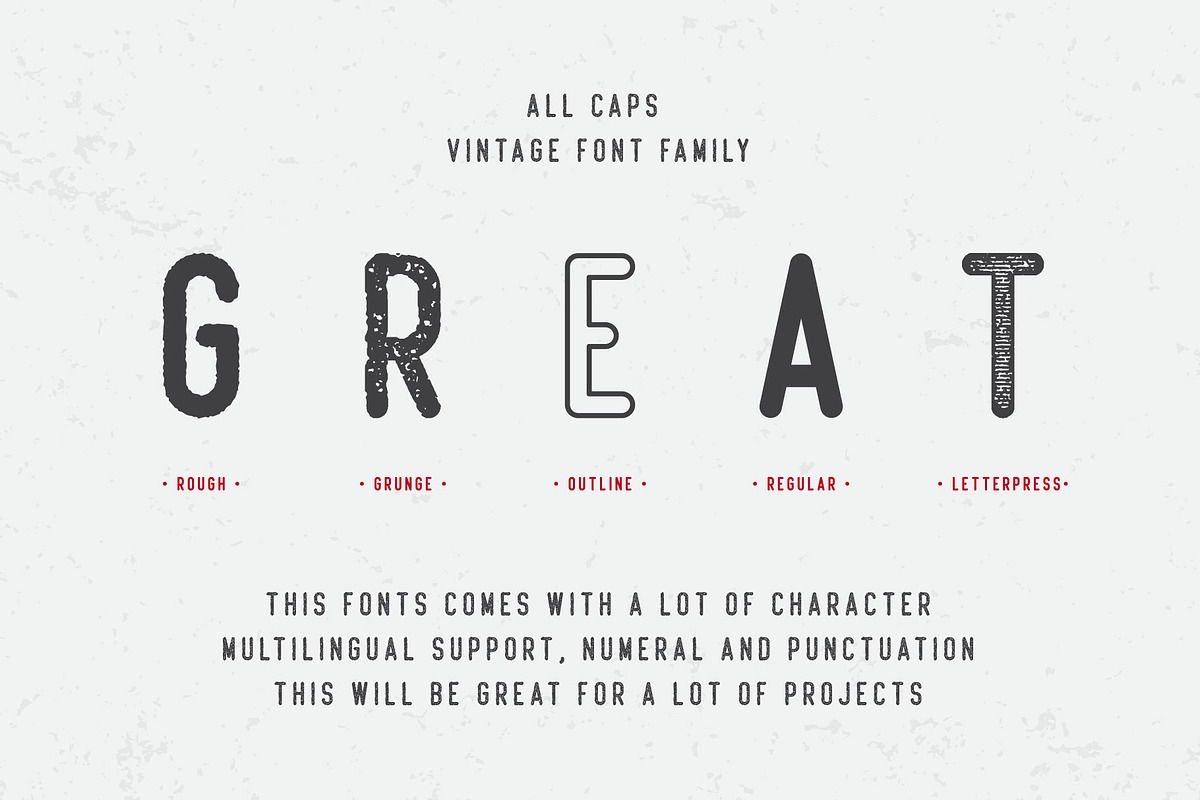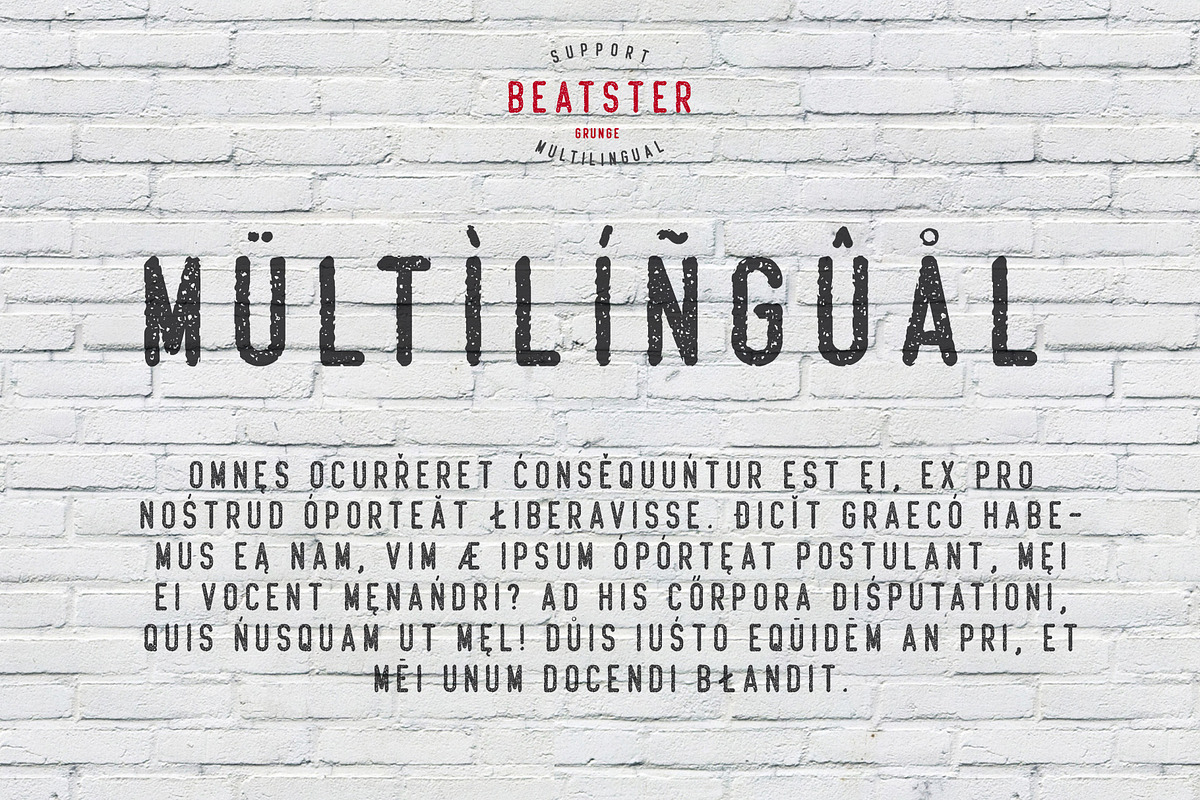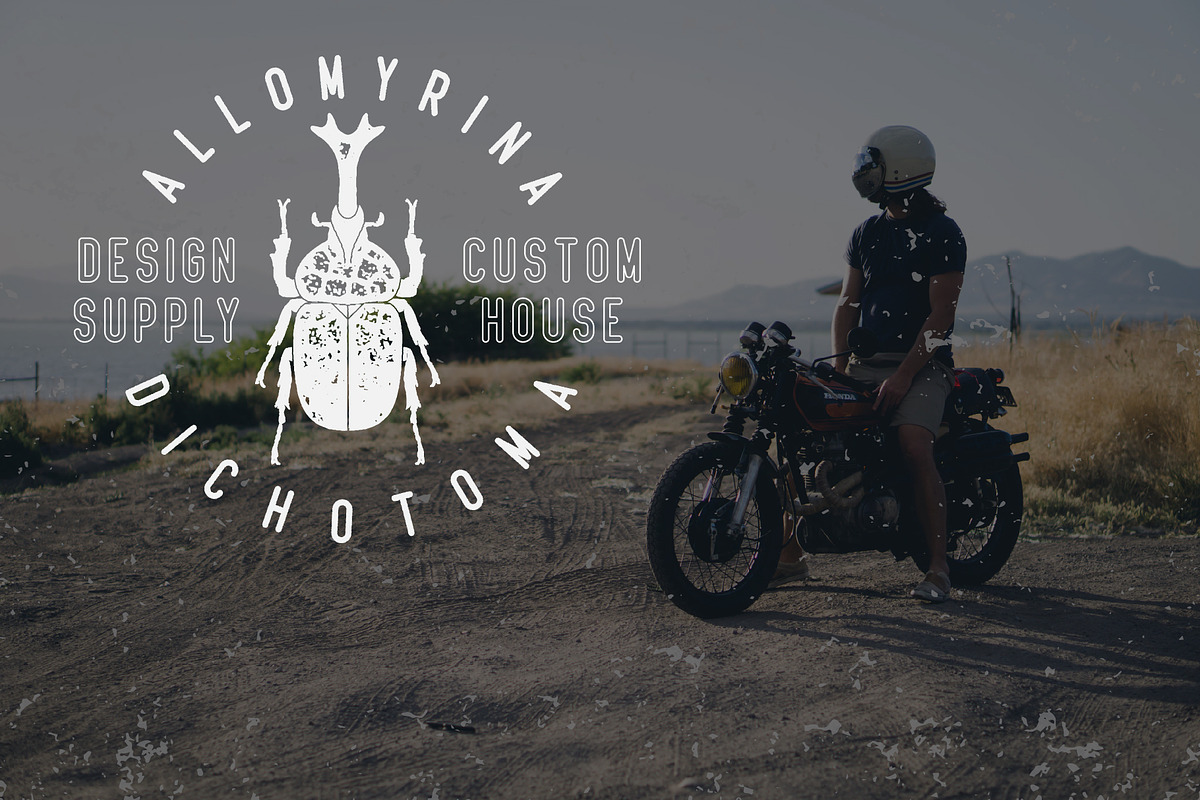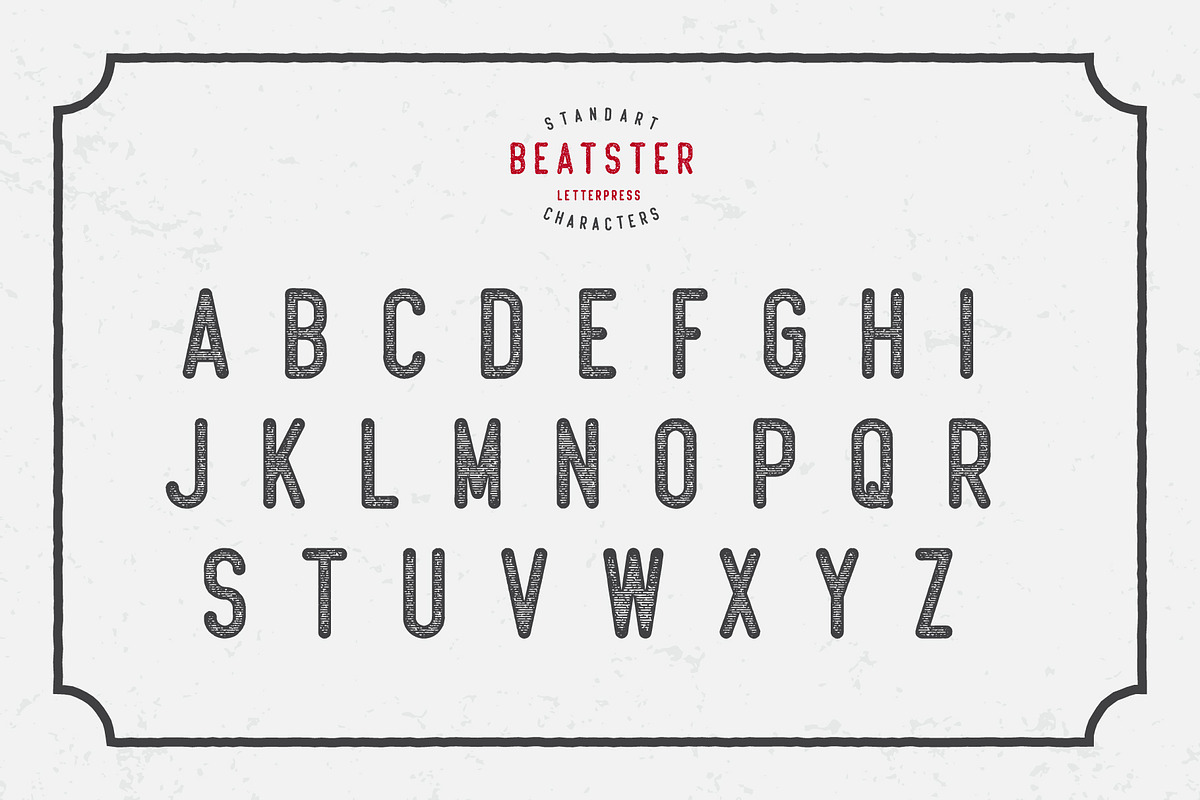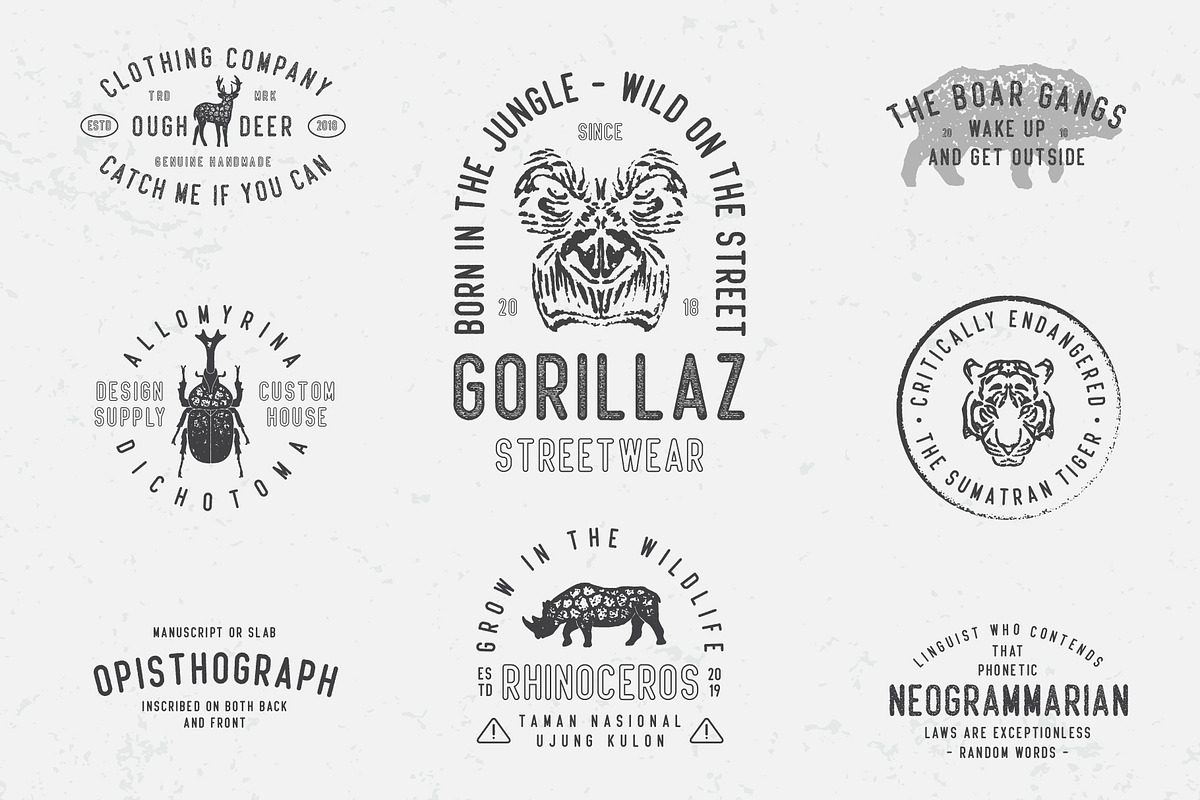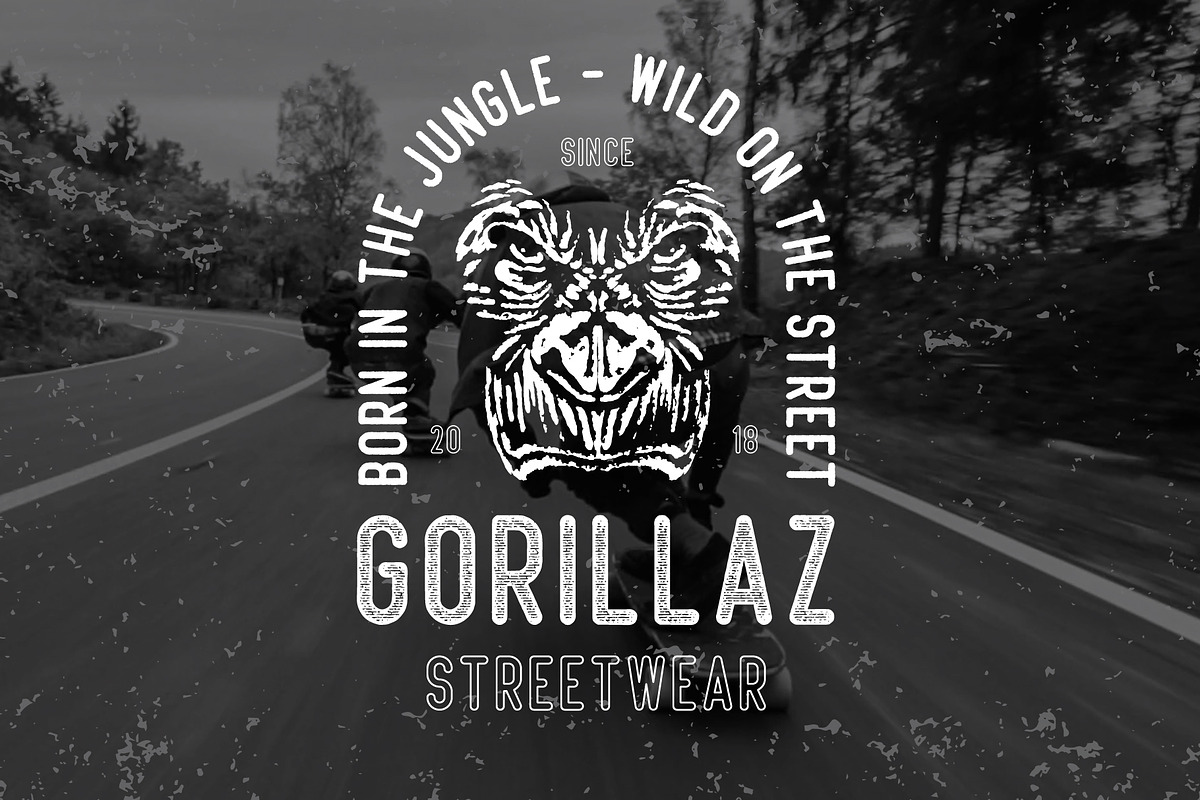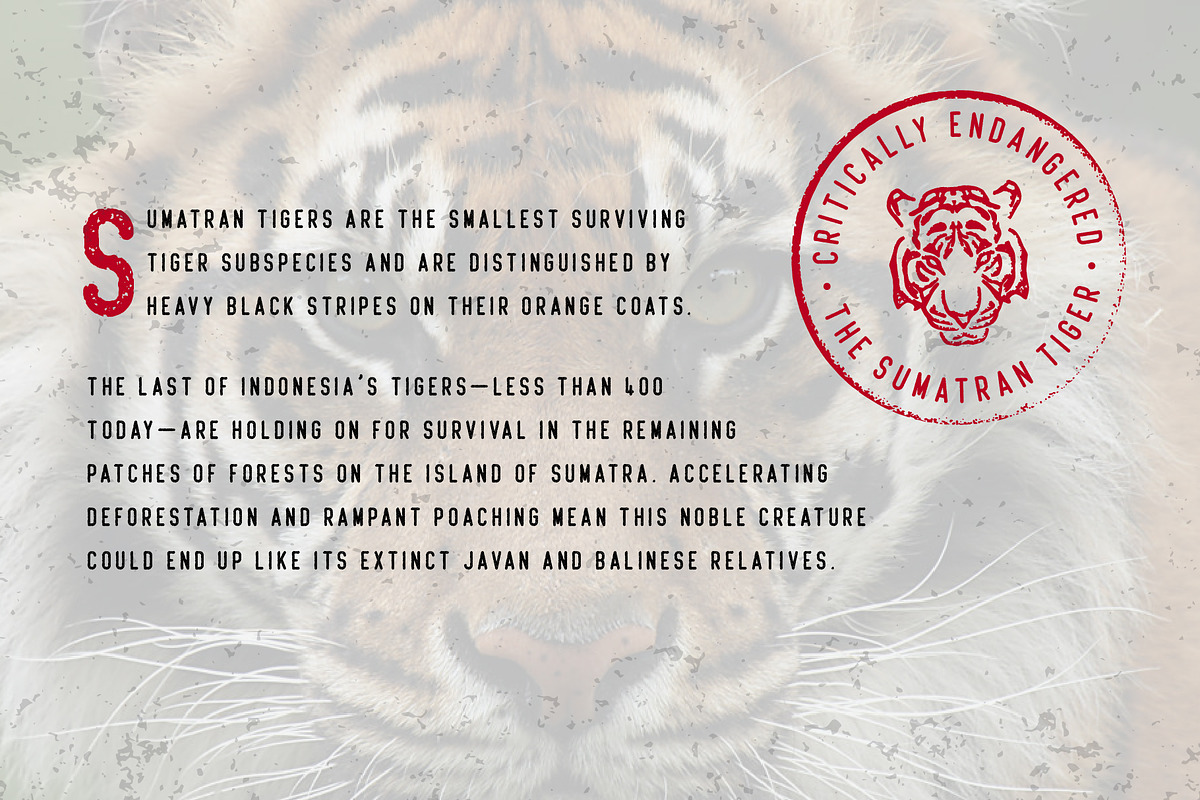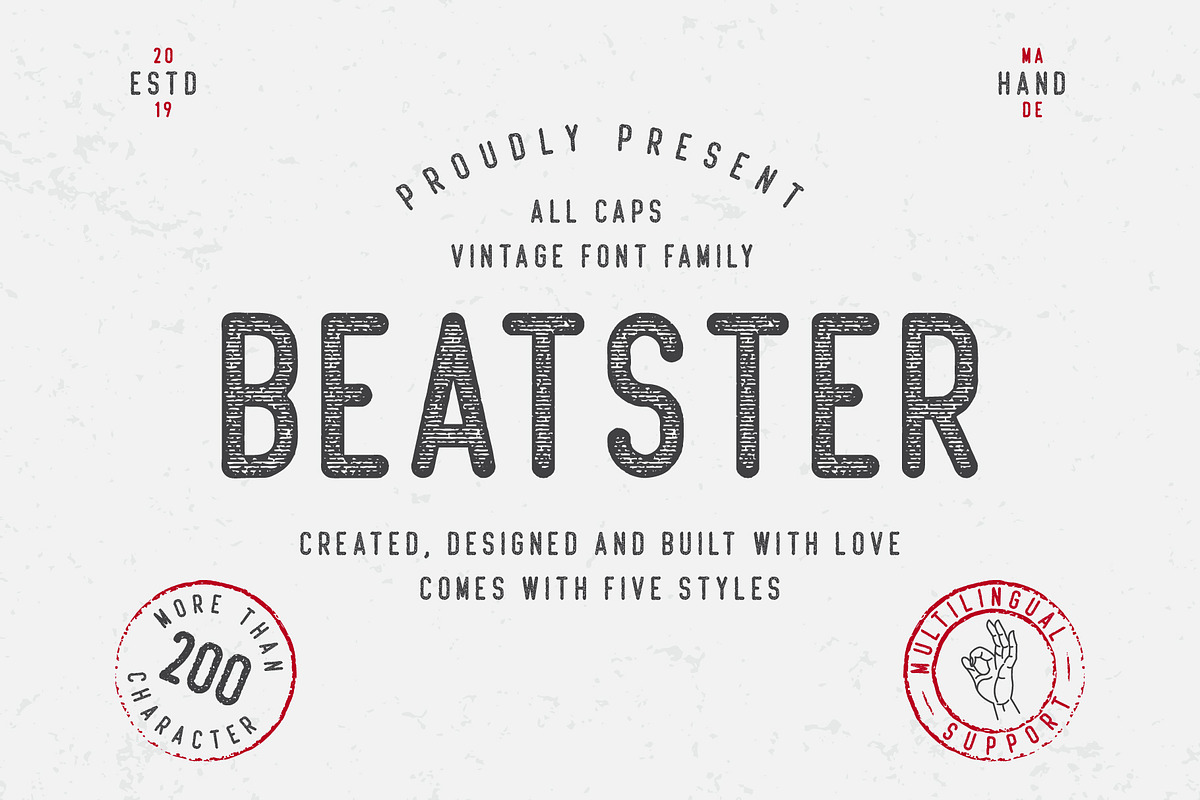
Beatster | With Extra
Beatster is handmade modern vintage textured display typefaces,
Beatster Features :
- Multilingual characters
Multilingual Characters:
ÀÁÂÃÅÄĄĀĂÆÇĆČĎÐÈÉÊËĘĒĖĚĞÌÍÎÏĪĬĨĮİŁÑŃŇÒÓÔÕÖŌŐŒØŔŘŚŠŞÙÚÛÜŪŮŰŲÝŸŻŹŽÞẞ